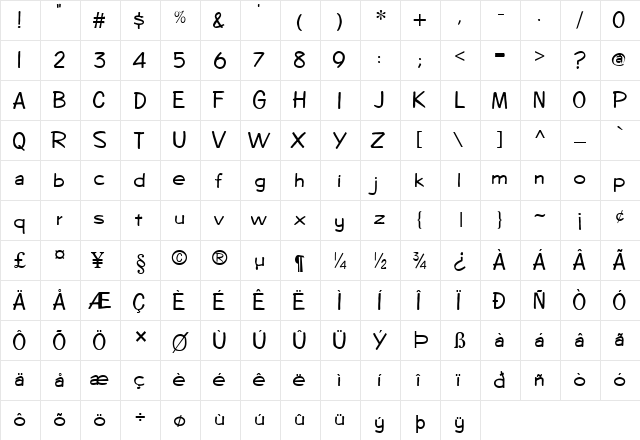
Answer Hunt Regular
Design Context for Answer Hunt Typeface
Answer Hunt offers clean, dependable letterforms without strong stylistic allegiance, making it a practical choice for designers who need flexibility.
Pro Tip: Use Answer Hunt in both headline and body roles to test its range before committing to a single application.